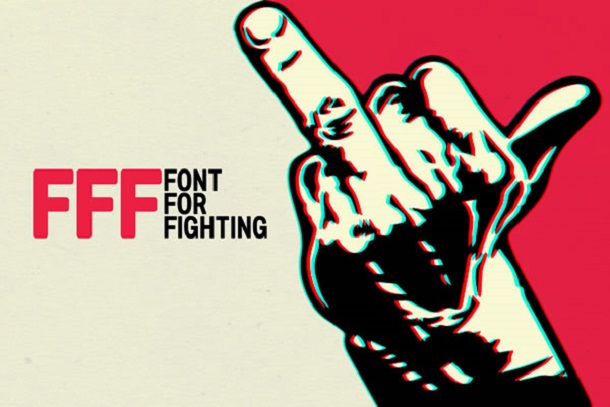
FFF Font
Today. A world premier. A type face created with the sole purpose of helping people to fight. The “Font for Fighting” was created by Andrea Gaspari because we all know that a “NO” written in Comic Sans is like saying that you are lactose intolerant while stuffing a french cheese in your face.
FFF Sans Serif Font Family